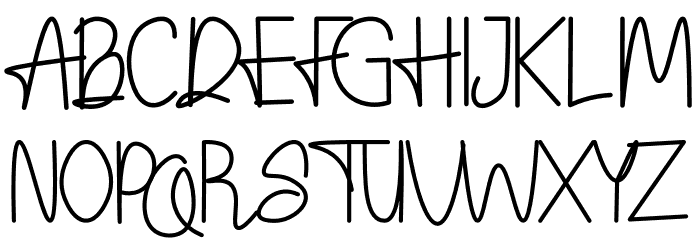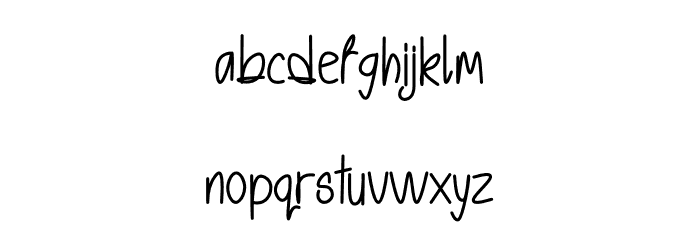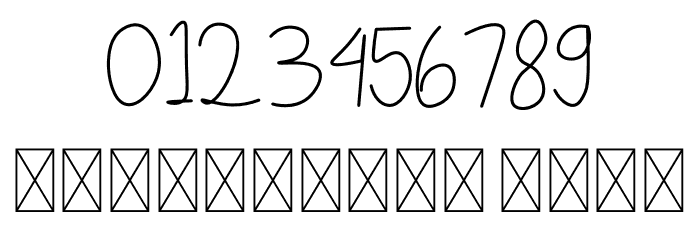
Belfica Font
This font features a playful and whimsical style with a handwritten appearance. The characters are tall and narrow, with a slightly irregular baseline that adds to its casual charm. The strokes are smooth and flowing, giving it a friendly and approachable feel. The uppercase letters are bold and prominent, while the lowercase letters maintain a consistent style with a touch of quirkiness. The numbers are clear and easy to read, matching the overall aesthetic. This font is ideal for projects that require a personal touch or a creative flair.
A playful, handwritten-style font with tall, narrow characters and a whimsical charm.
- Font: Belfica
- Proposed Projects: Greeting cards, children's books, creative posters, and personal branding materials.
- Category: Handwritten
- Width: Condensed
- Use Case: Headlines, Logos, Creative projects